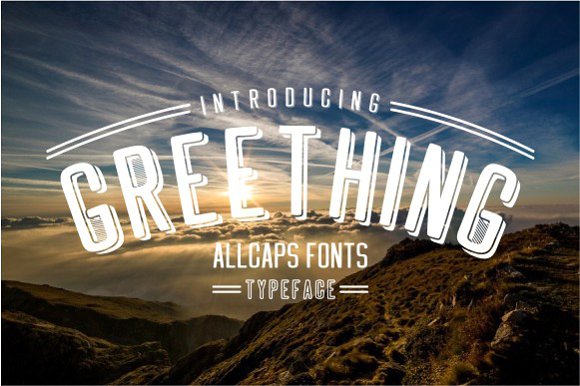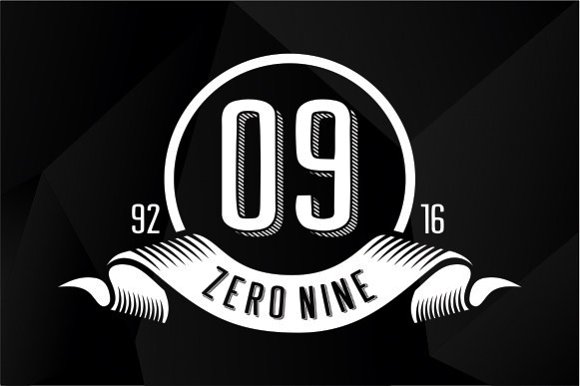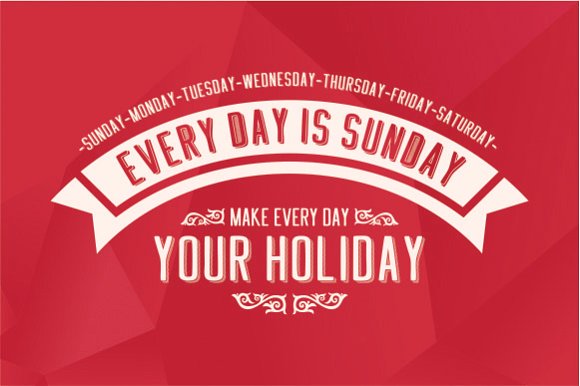
Greething Sans Typeface
Greething Sans is a simply beautiful vintage sans serif font. It comes in 4 stunning variations:
- Greething Sans Regular
- Greething Sans Shadow Line
- Greething Sans Block Shadow Line
- Greething Sans Line